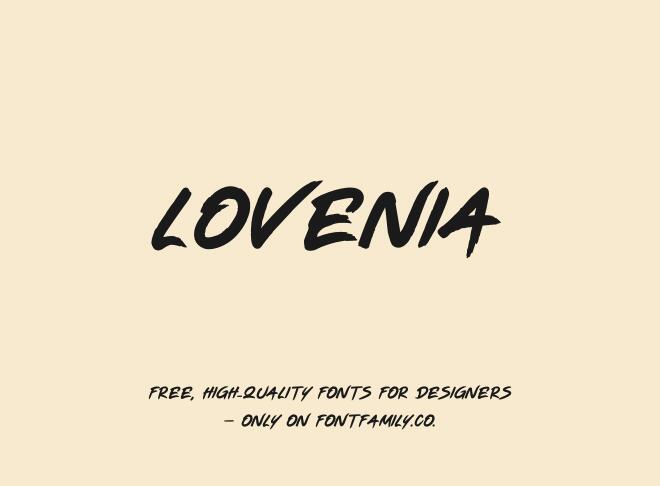
Lovenia Font
The Lovenia Font is a modern yet elegant handwritten typeface, designed by Creative Fabrica. With its smooth curves and fluid line work, it brings a touch of sophistication to any design project. This versatile font is perfect for a variety of applications, from wedding invitations to fashion branding, and from social media posts to home decor. Compared to other fonts, Lovenia stands out for its unique character forms and ligatures, giving your text a distinctive and personalized look. It's a great choice for designers who want to add a touch of elegance and modernity to their work. The font includes uppercase, lowercase, numbers, punctuation, and multilingual characters, making it versatile and adaptable to any design context.
Author | Creative Fabrica |